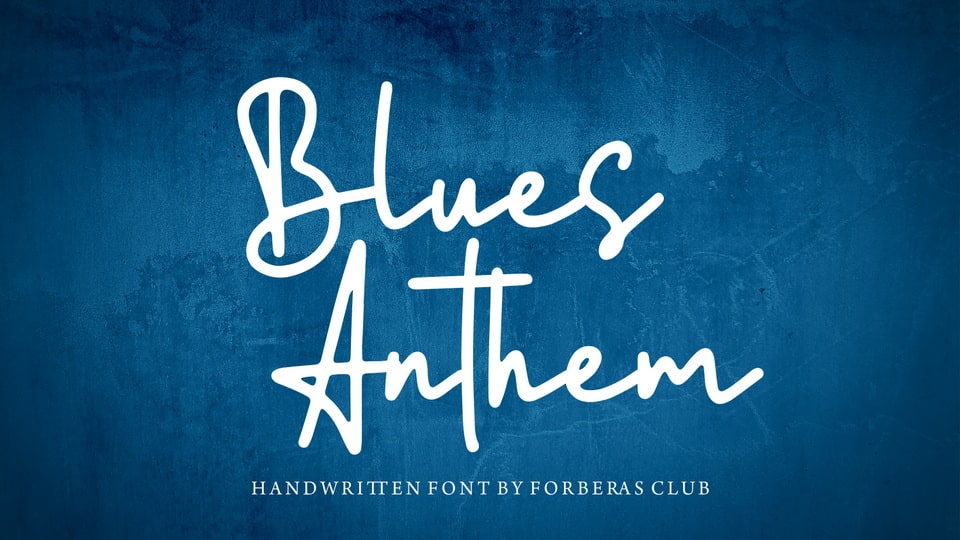
Download Blues Anthem font, a natural script typeface inspired by casual handwriting. Blues Anthem is especially designed for personal, elegant, feminine projects.